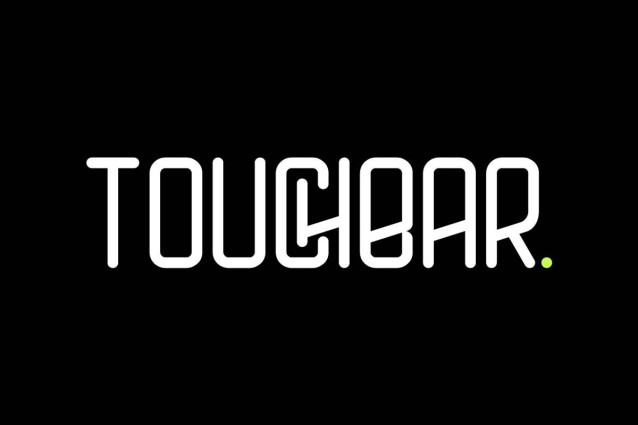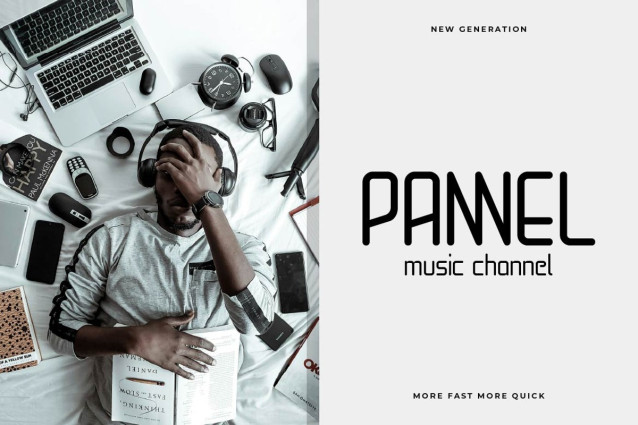
Touchbar Font
Touchbar Font is a modern technology-inspired font designed for the future. With sleek lines, minimal curves, and geometric precision, Touchbar captures the essence of high-tech aesthetics. Every character is crafted to reflect innovation and clarity, making it ideal for UI design, tech branding, app interfaces, digital posters, and anything that calls for a futuristic vibe.